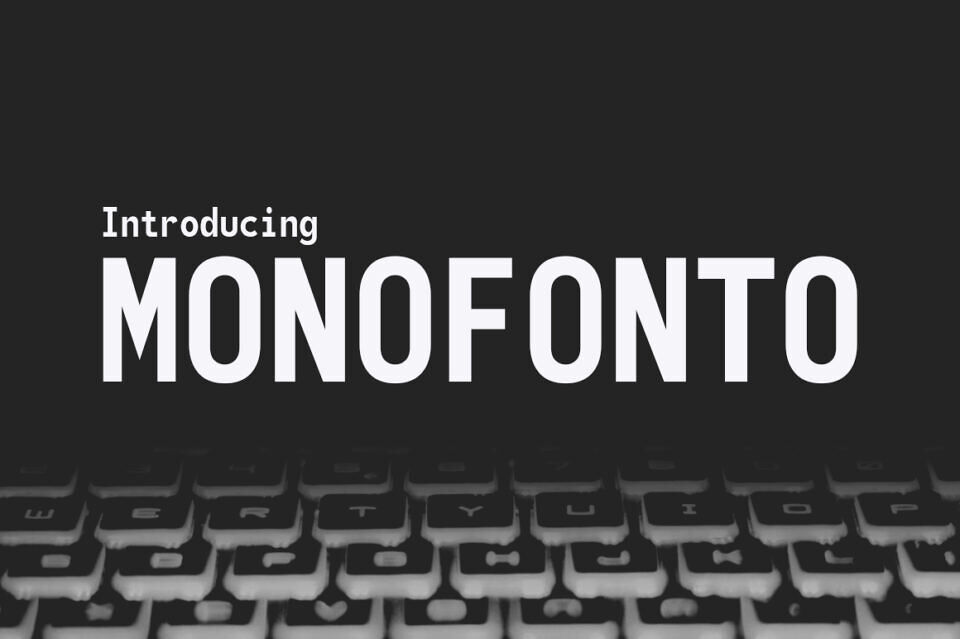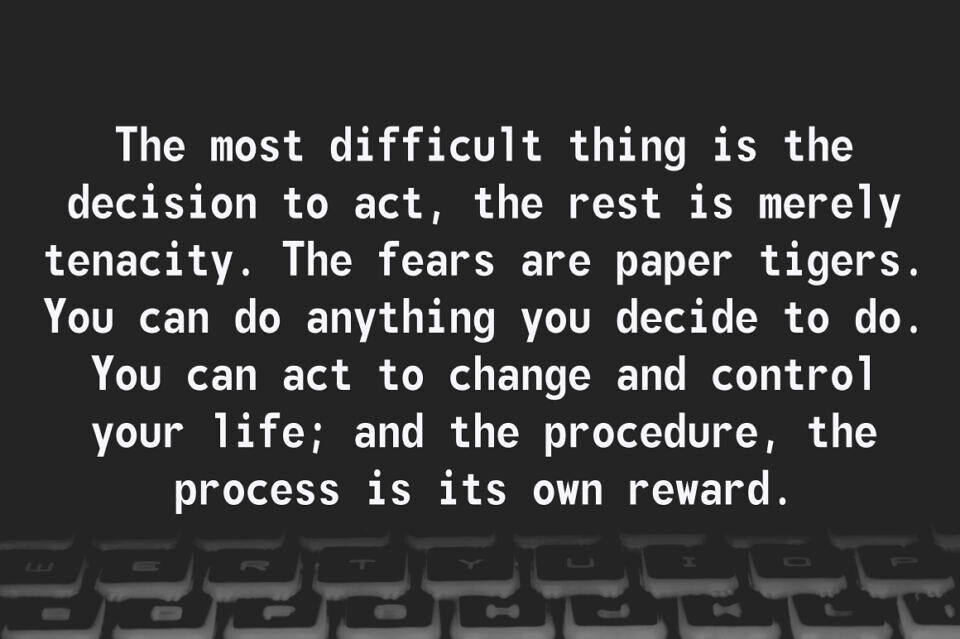
Monofonto originated in the late 1990s, drawing inspiration from Bell Centennial. It gained popularity through the Fallout series and has since been revamped. The updated font features refined corners, smooth curves, and optimized spacing for clarity. It supports multiple scripts and includes Regular, Italic, Bold, and Bold Italic styles. The italic adds a touch of motion, balancing structure and warmth. Suitable for retro and modern designs, Monofonto offers precise readability with a unique character.